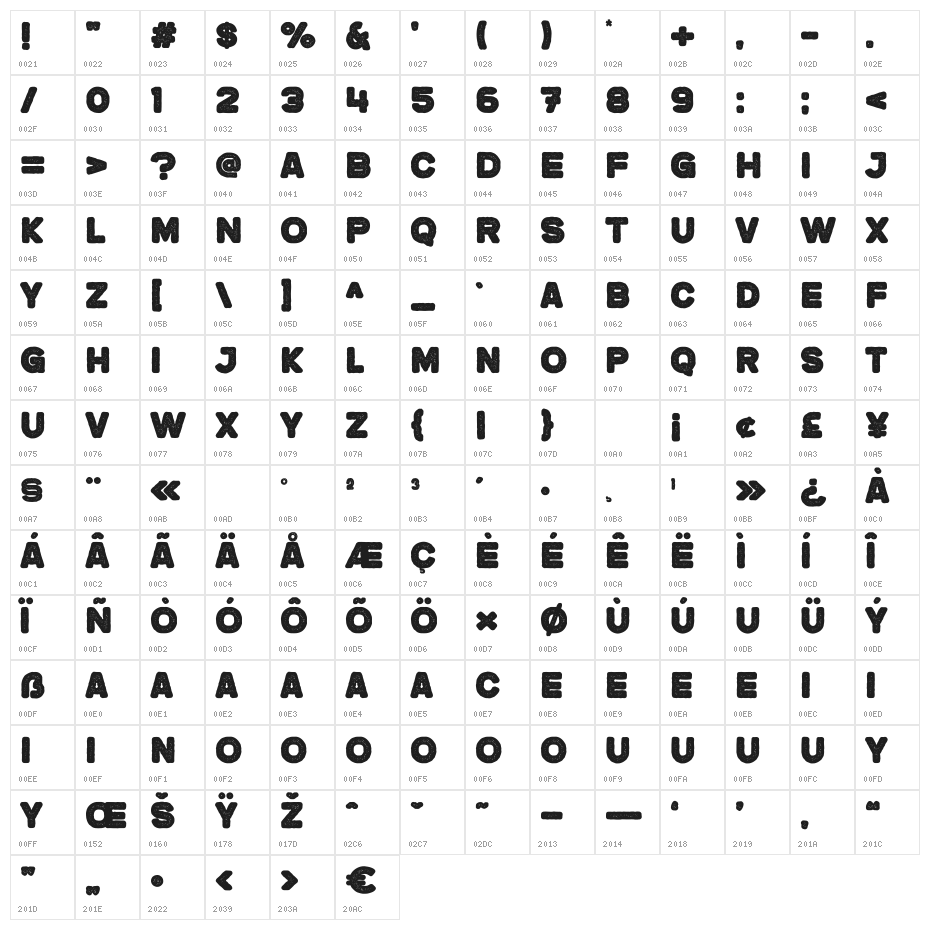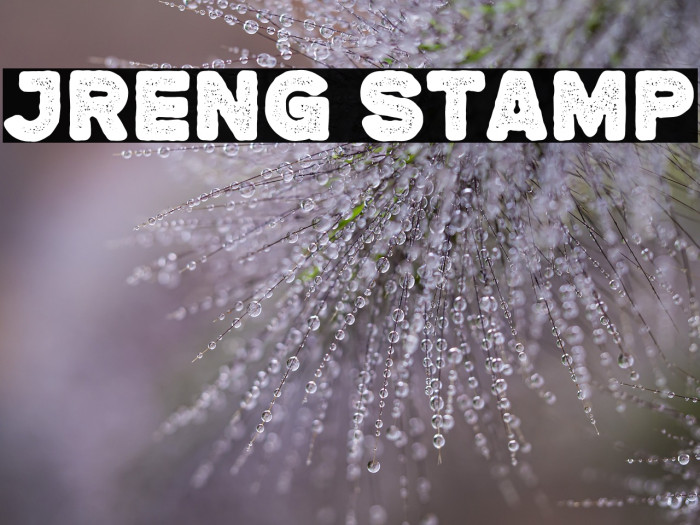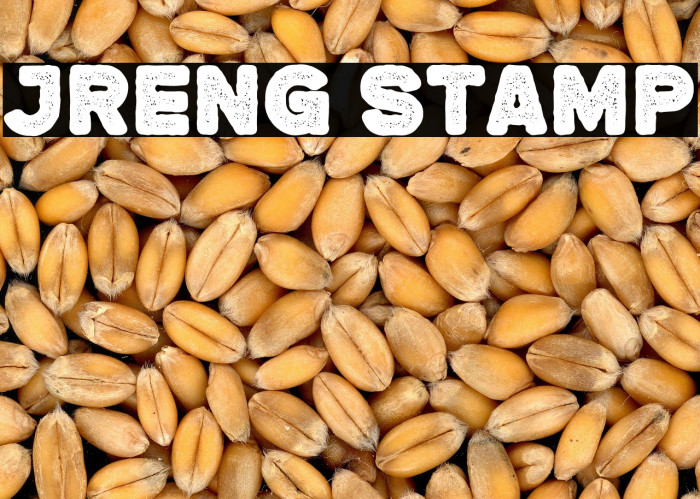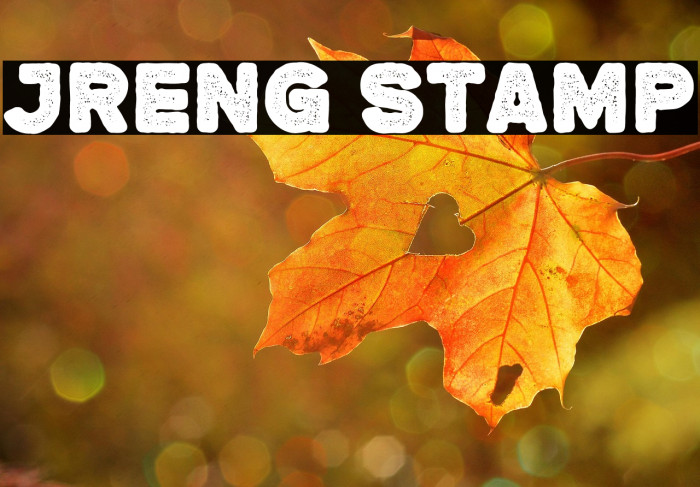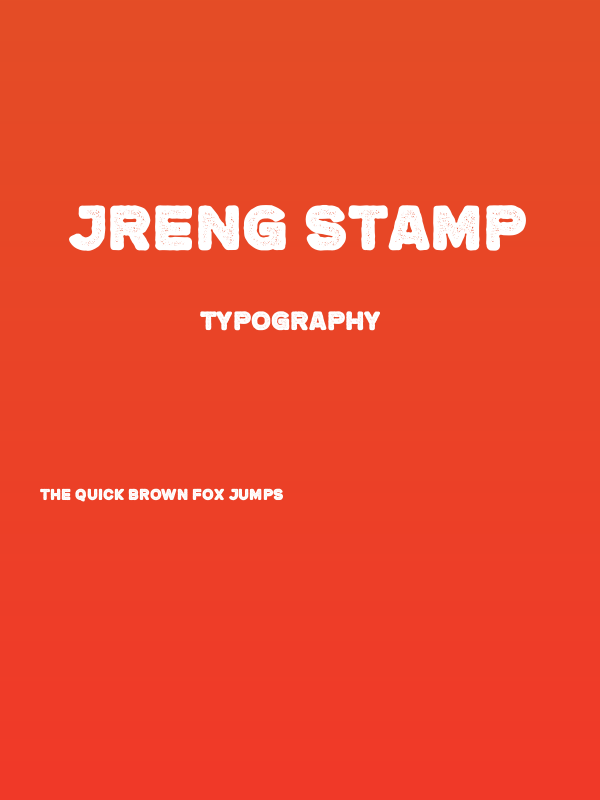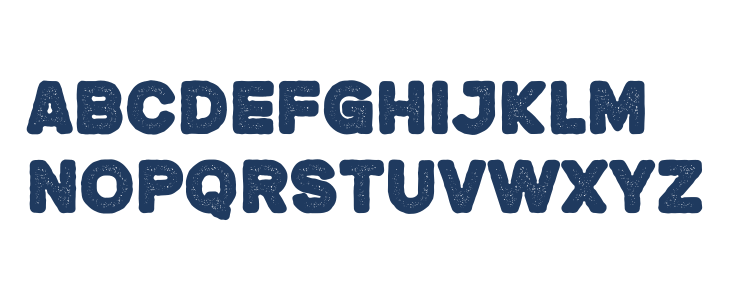
Jreng Stamp Font
Jreng Stamp Description
This font features a bold, distressed style with a textured appearance reminiscent of a stamp or ink print. The characters are uniformly thick, with rounded edges that give a soft yet impactful look. The distressed texture adds a vintage and rugged feel, making it suitable for designs that require a handcrafted or industrial aesthetic. The uppercase and lowercase letters maintain consistent proportions, while the numbers and special characters follow the same stylistic cues, ensuring a cohesive look across all text. The font's design is eye-catching and distinct, perfect for projects that aim to stand out.
| Proposed Projects | Ideal for posters, branding, packaging, and any design requiring a vintage or industrial touch. |